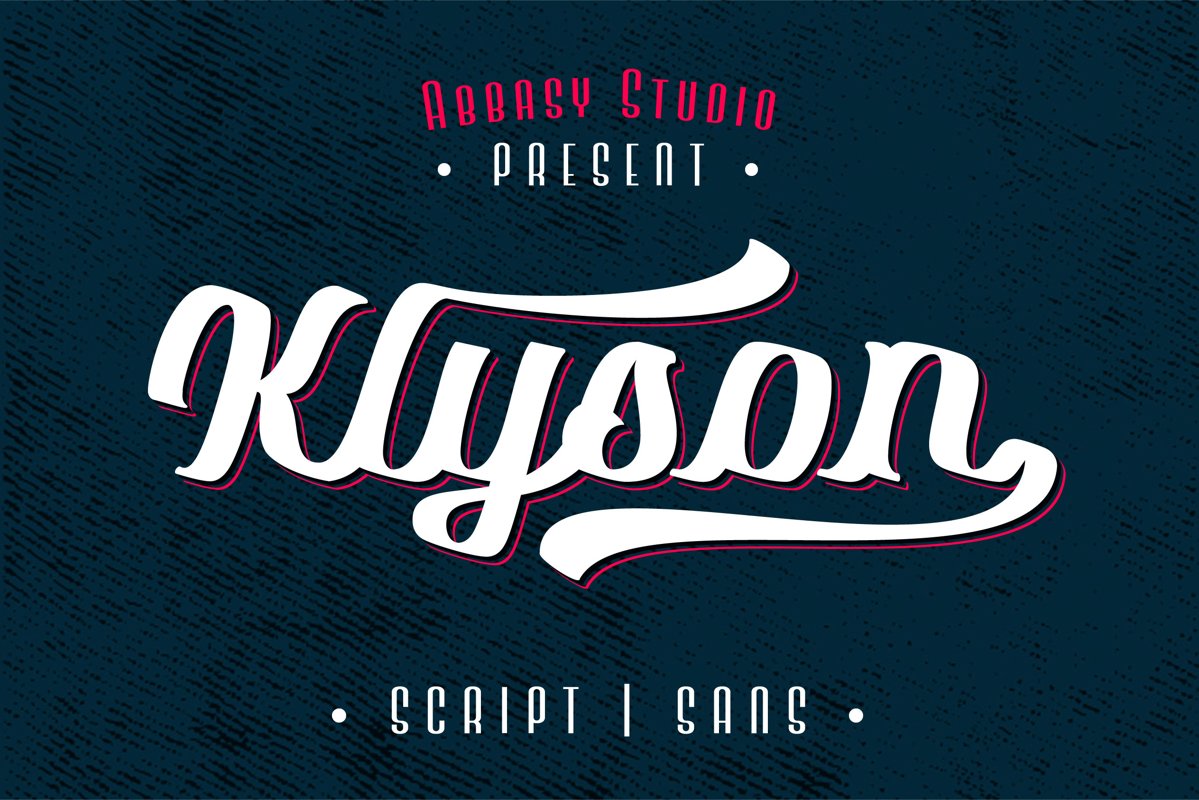
Klyson Font Duo
Klyson-Sans
Klyson-Script
Introducing Klyson Font Duo
Klyson Font Duo is a clean bold brush script and thin sans. This script font comes with multiple alternates that will make your words look more cool. With additional sans font you will be able to create the beautiful combination. Both of these font is great for Logos, Lettering, Clothing Design, Poster, Label, Quotes, etc.
– Character Set A-Z
– Numerals & Punctuations
– Multilingual characters (Western European & Central European)
– Stylistic alternates
– Ligatures
– Terminal Forms